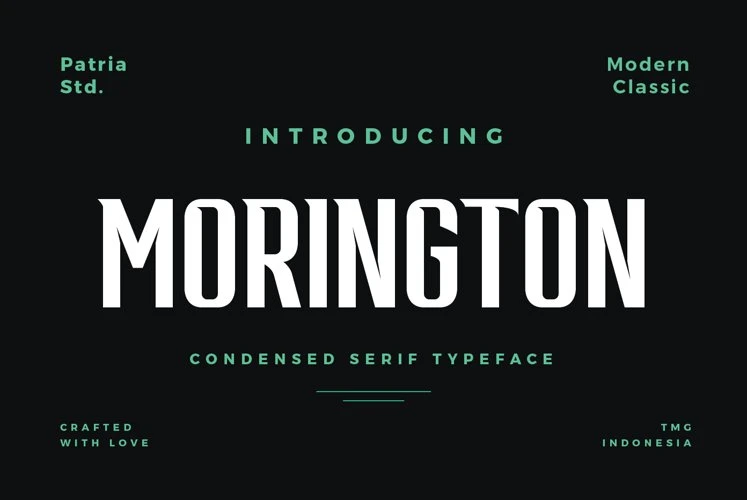
Morington Display Typeface is a condensed serif font built for bold, attention-grabbing headlines. Its strong characters blend modern and vintage vibes, making it a versatile choice for branding, posters, and packaging. Whether you’re designing a logo or a banner, this bold font delivers impact.
- ✅ Condensed Serif Design → Saves space while keeping text readable and powerful.
- ✅ Strong Character Set → Ensures your headlines stand out in any medium.
- ✅ Modern & Classic Compatibility → Works for both contemporary and retro projects.
- ✅ Includes Glyphs & Kerning → Fine-tune your typography for professional results.
Morington isn’t just another display typeface. Its condensed form and robust serifs give you a unique tool for creating memorable designs. Plus, it’s optimized for headlines, logos, and signage, so you get maximum versatility from a single font. The included glyphs and kerning guides make customization effortless.